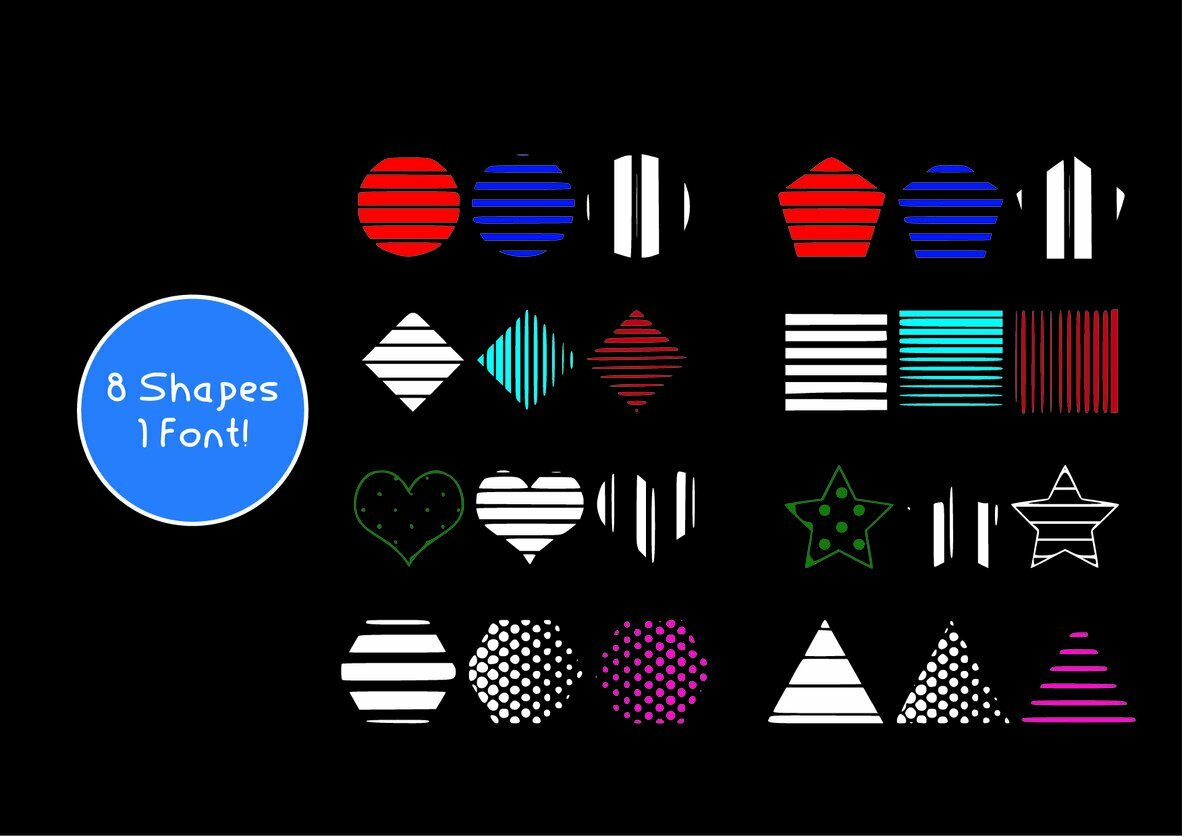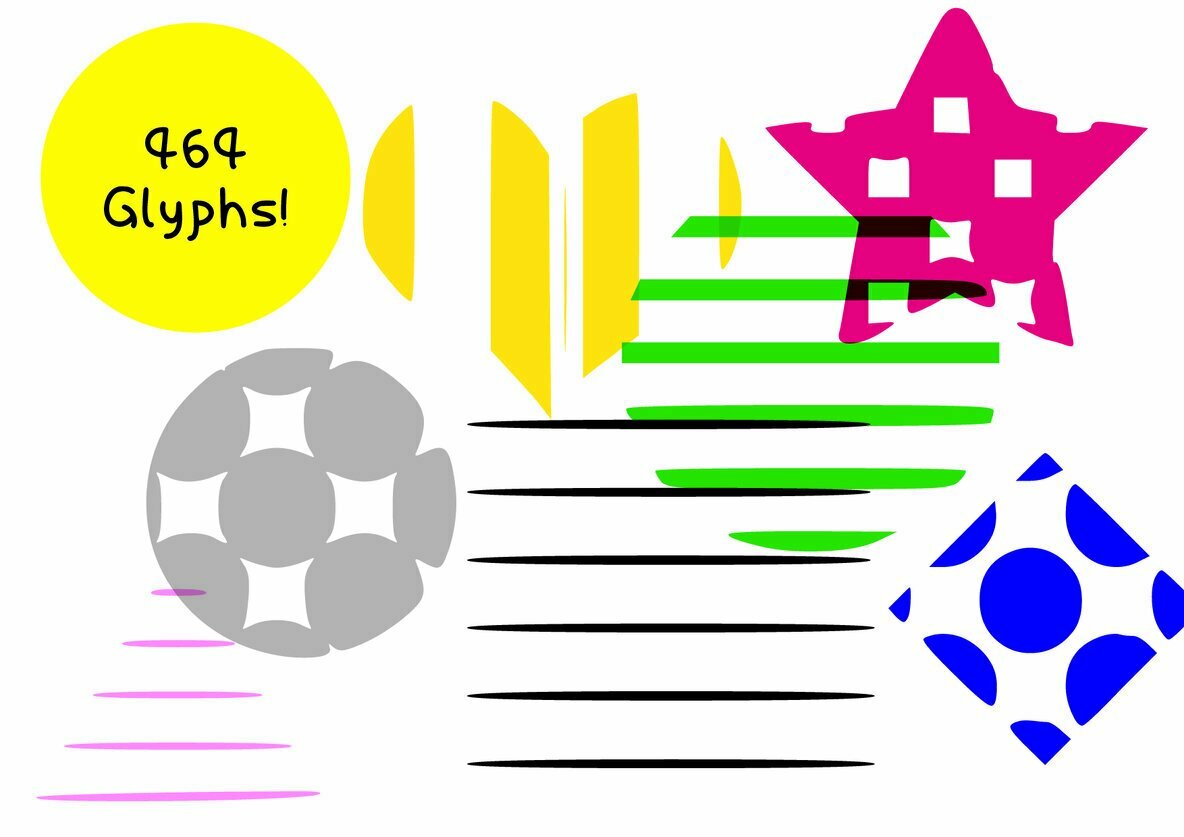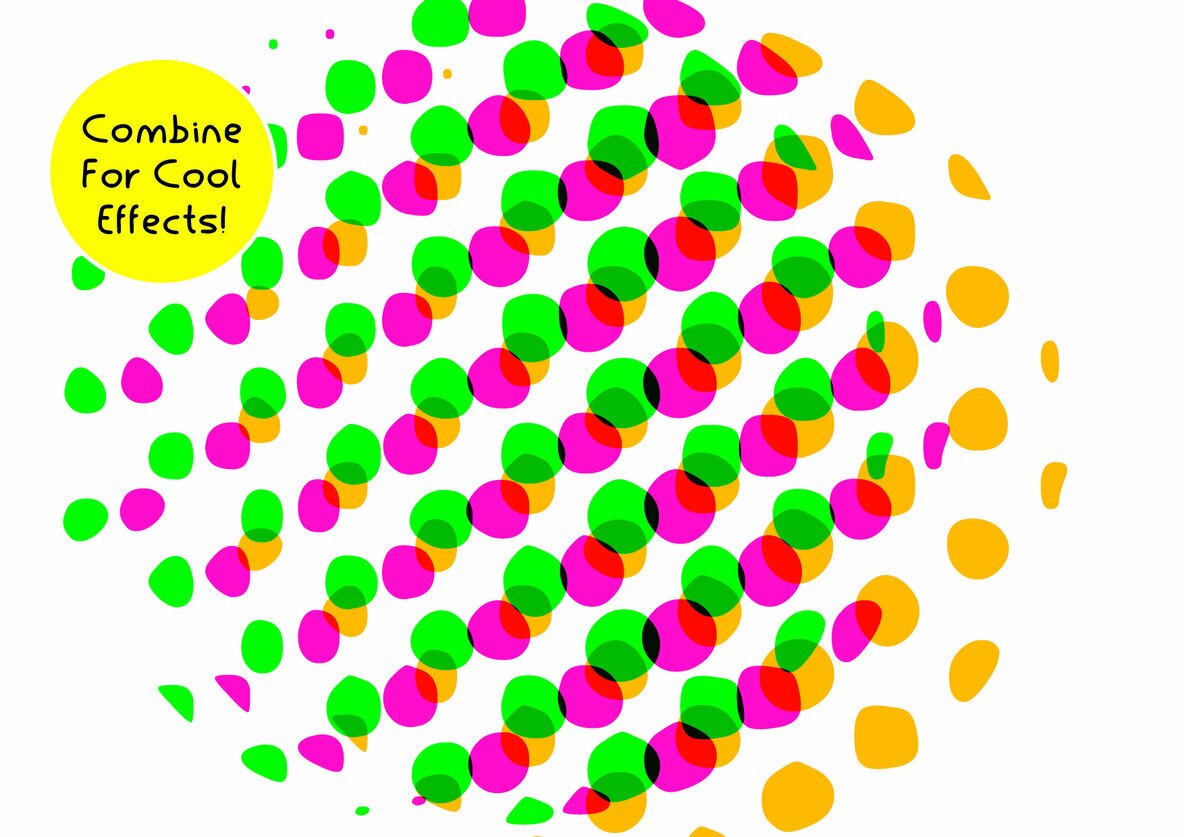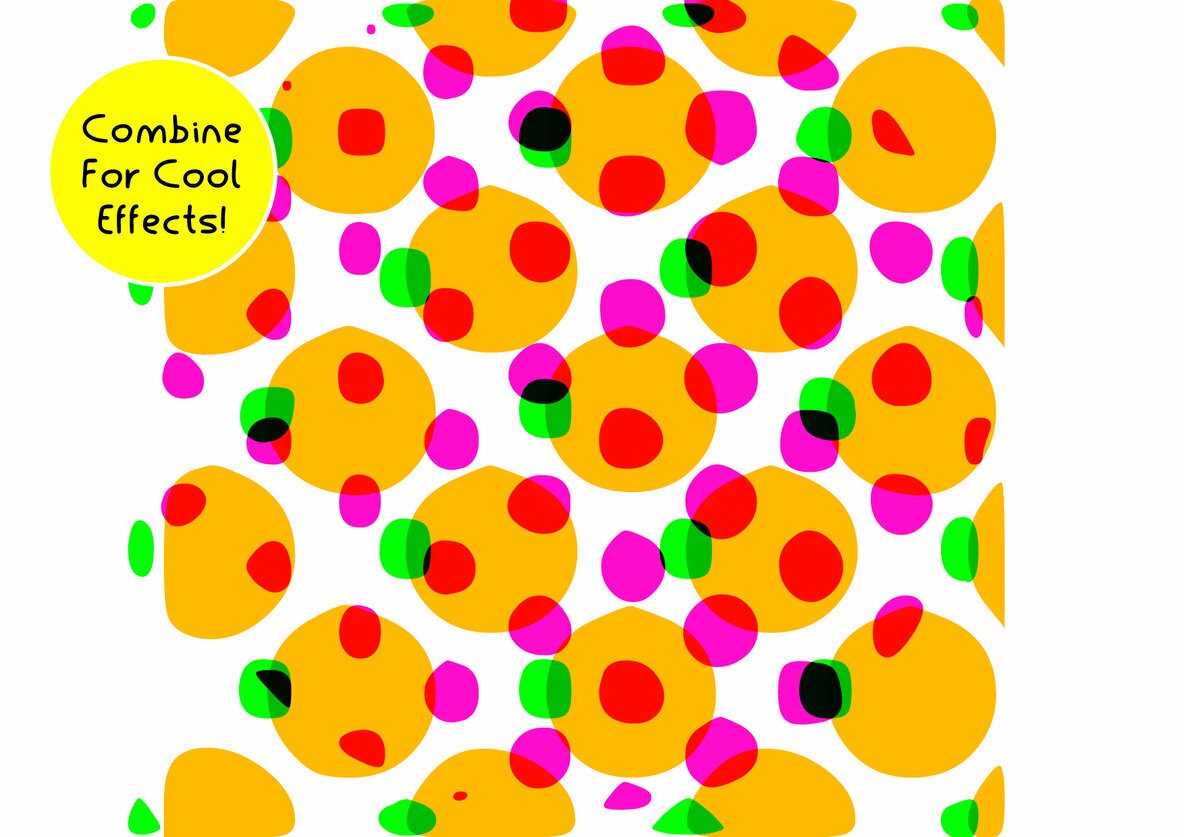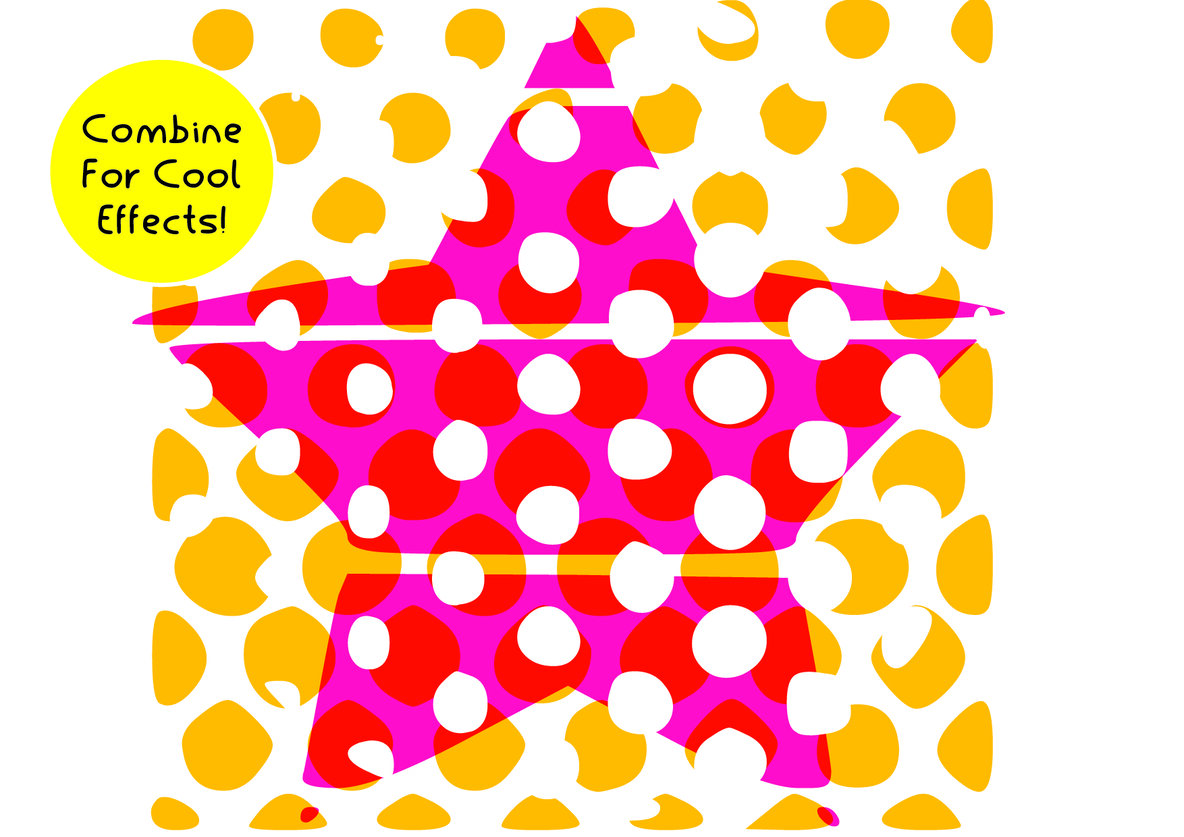
Strips and Spots Font
Strips and Spots is a fun dingbats font featuring 464 amazing glyphs. Combine the glyphs for cool effects or create unique patterns! Including Hearts, Stars, Circles, Squares, Triangles, Squares and more all featuring a variety of spots and stripes!